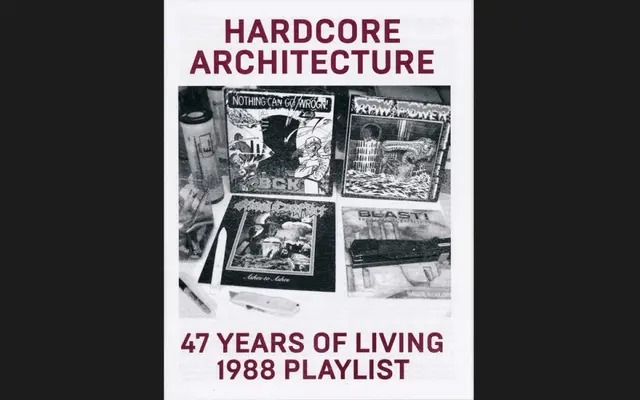
Brutal Type
Brownfox · Marc Fischer
An eight-weight grotesque sans from Brownfox covering Latin and Cyrillic across 72 languages, designed by Marc Fischer.
Brutal Type runs from Thin to Black across eight weights, with no italics or condensed cuts, giving it a direct, no-frills character suited to display and editorial work. Cyrillic support alongside Latin extended coverage makes it viable across 72 languages. The name and specimen suggest a purposefully blunt aesthetic rather than a refined humanist approach.
The specimen and name suggest a blunt, industrial grotesque character; wide weight range and straightforward structure place it firmly in the grotesque sans-serif tradition.